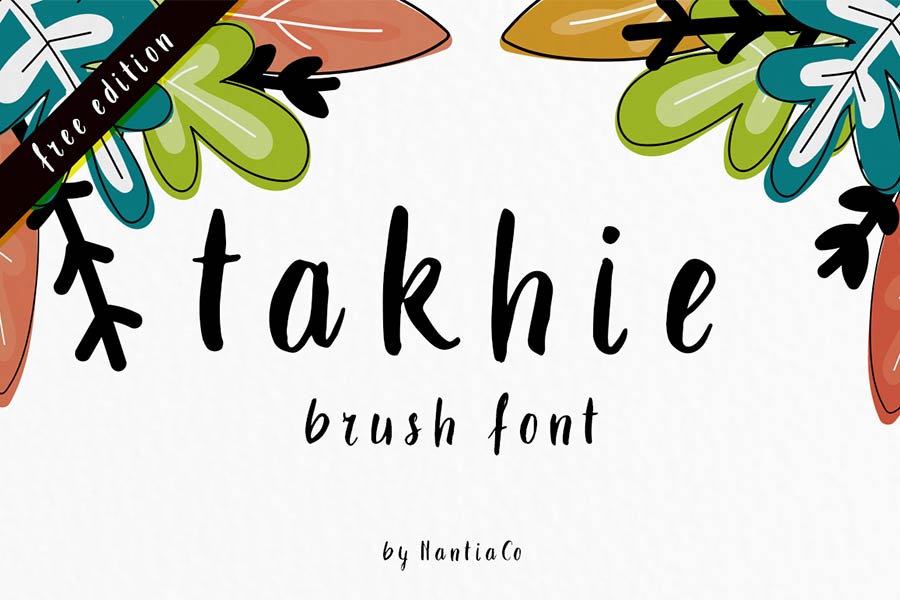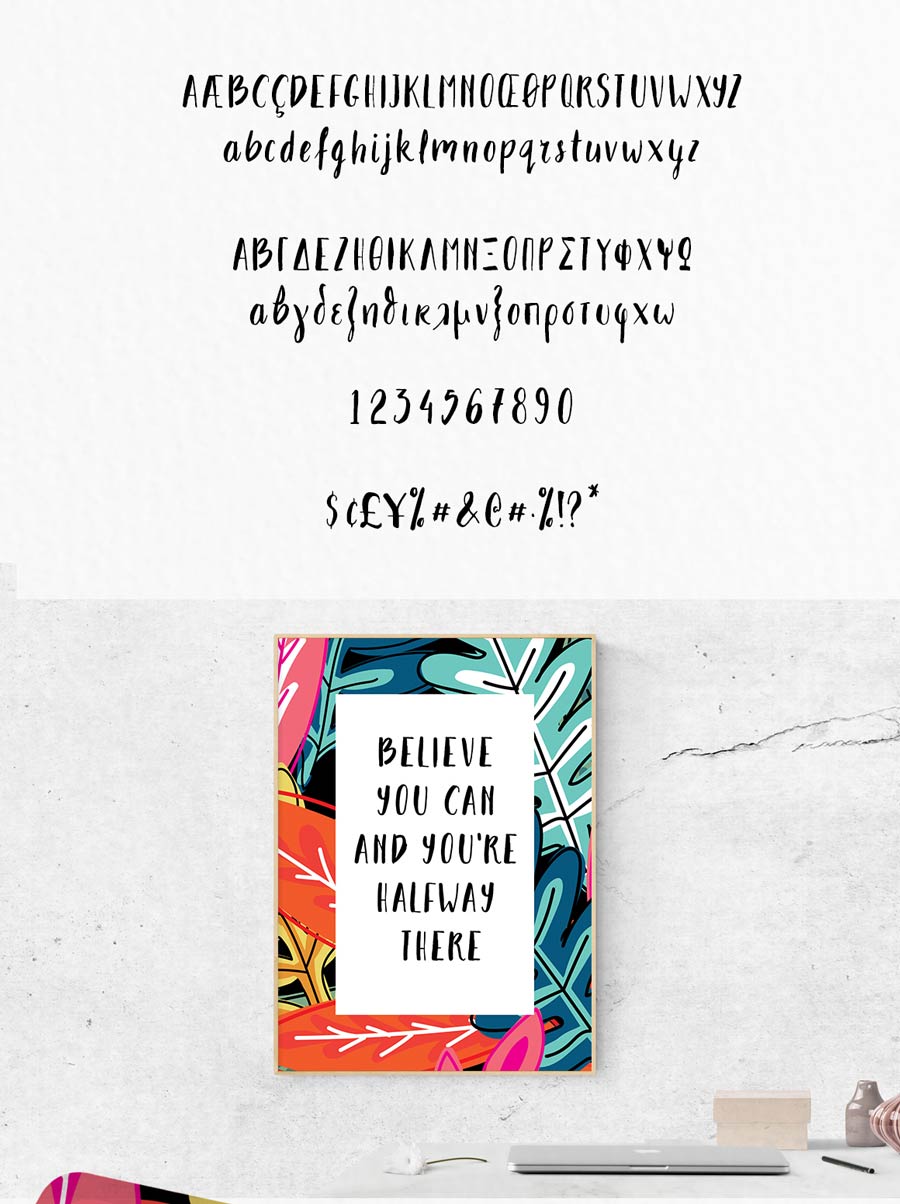
Takhie is a free handwritten brush font that supports multiple languages, for example Latin and Greek letters. The letters were written beautifully and also highly readable, making this font a great choice for your next invitation card designs, posters, labels, packaging designs and many more.